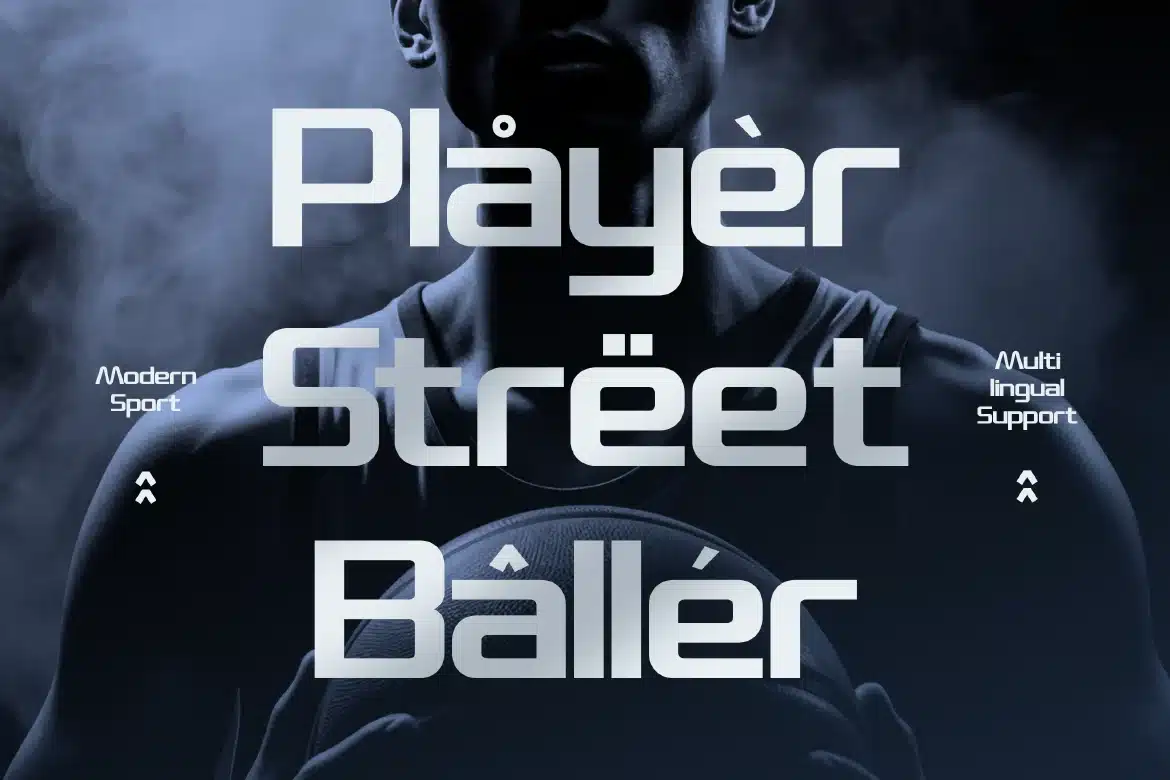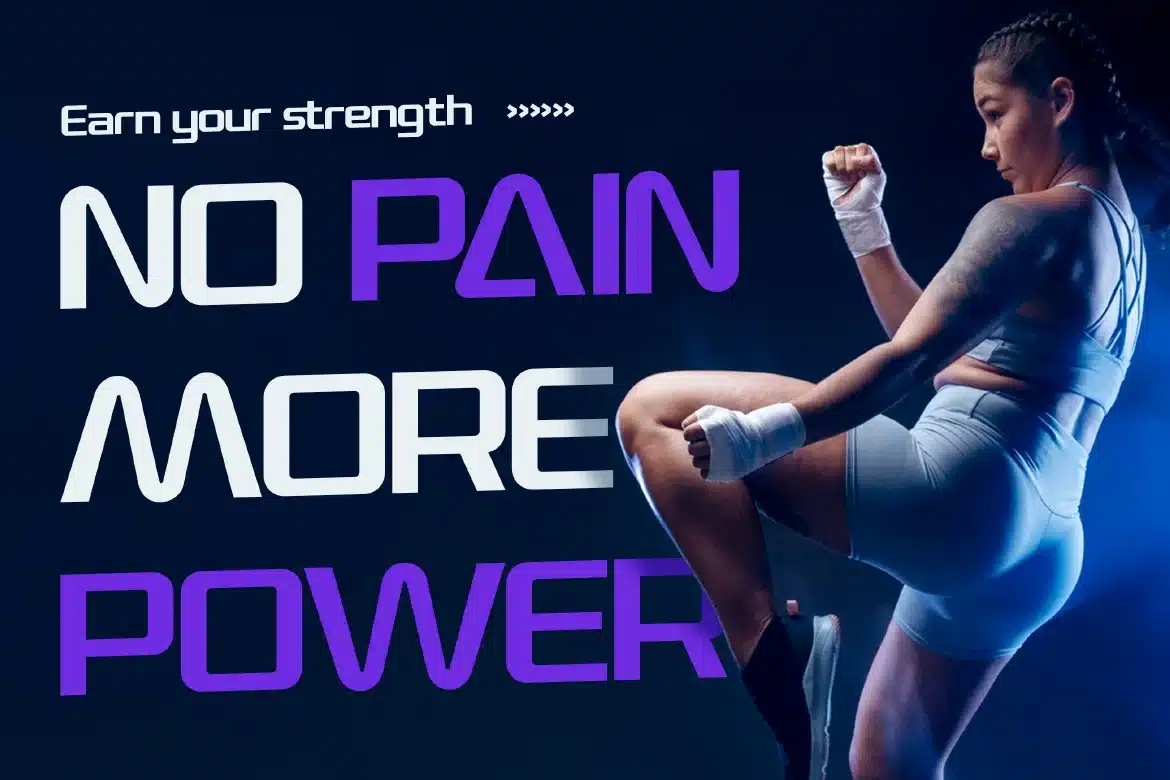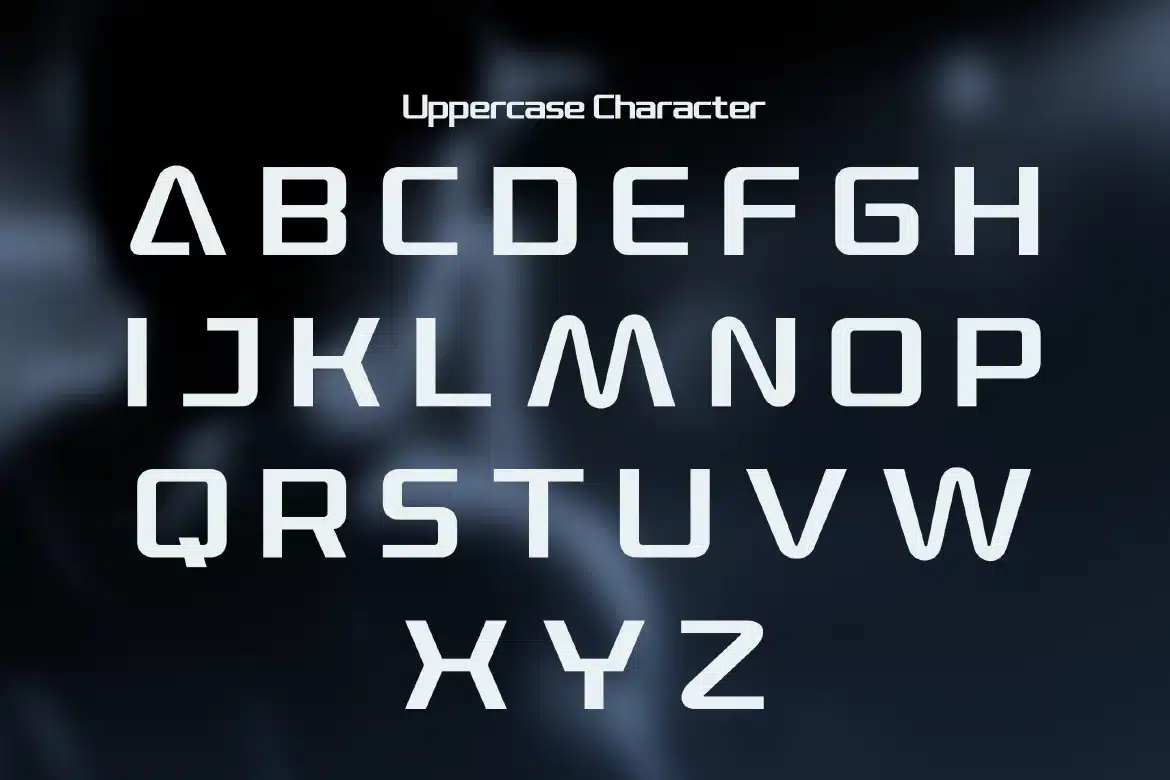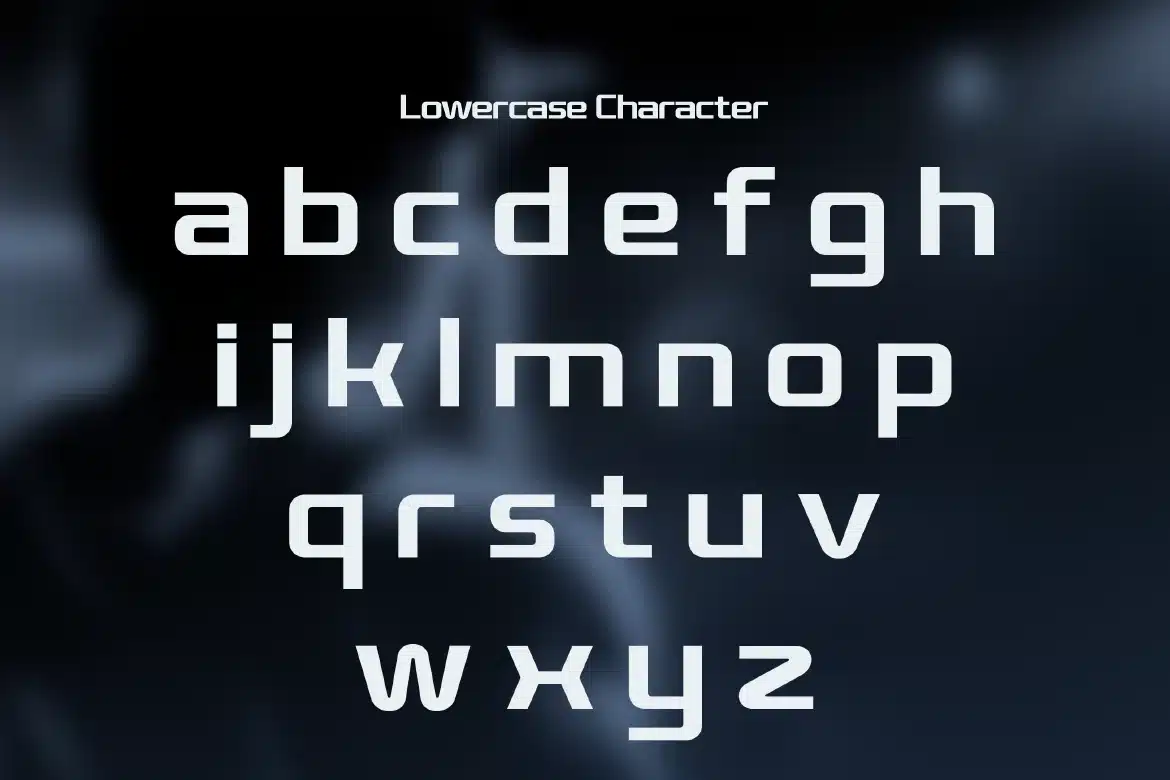
Modern Sport Display Font – Essora
Essora is a modern sport display font designed to deliver a clean, energetic, and performance-driven visual style. With its bold lines, sharp edges, and balanced construction, Essora creates a dynamic yet refined look that stands out without feeling overly aggressive. Built for clarity and impact, Essora works exceptionally well in headlines and bold compositions where visibility is key. Its modern sporty character brings a sense of movement and confidence, making it perfect for designs that aim to feel active, fresh, and professional.
Who Should Use Essora?
Essora is ideal for designers, brands, and creatives looking for a modern sport font with a clean and stylish edge. It’s especially suited for projects that require energetic yet refined typography.
Sports branding and team logos
Esports and gaming visuals
Fitness and active lifestyle design
Posters and event promotions
Advertising and campaigns
Social media graphics
Modern headline typography